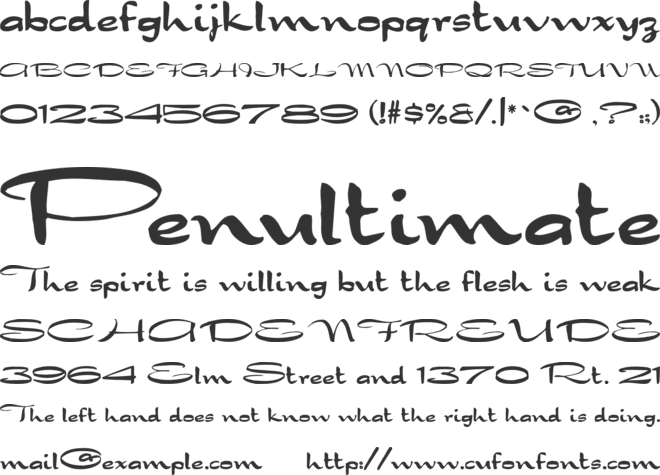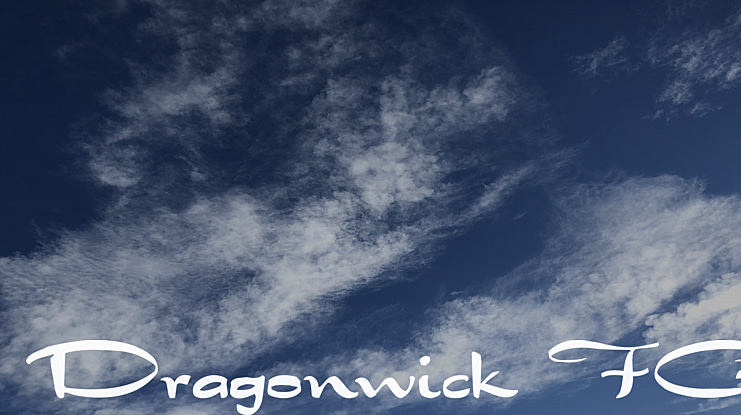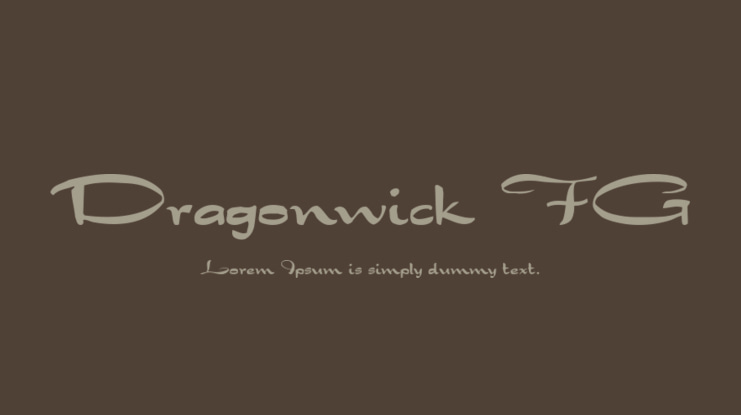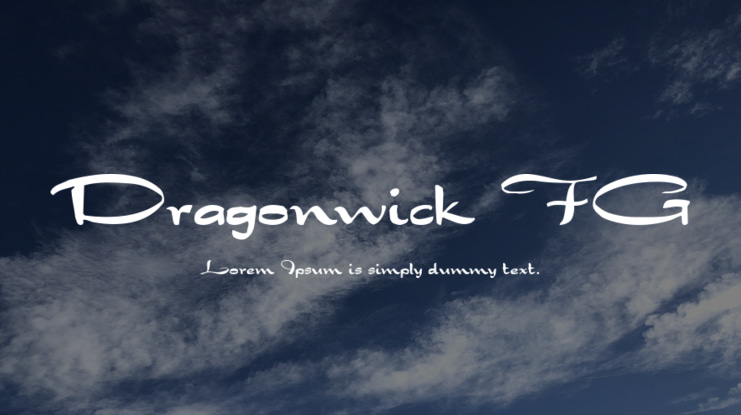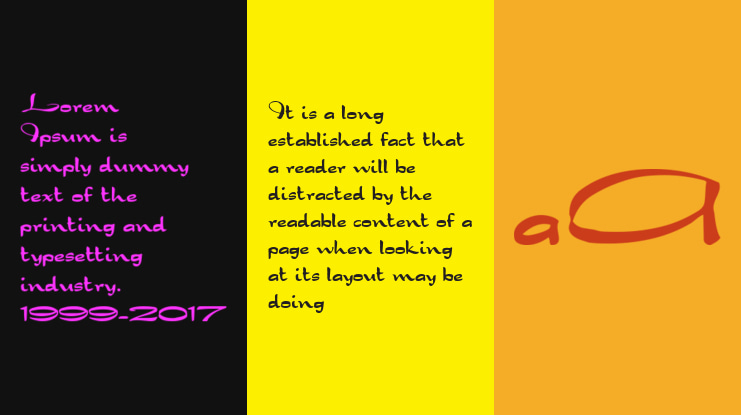
Dragonwick FG Font
This font was digitized in 1990 by David Rakowski and published as shareware. I have no idea as to whether he also designed it or scanned one of the solotype catalogue samples.Dragonwick 1990 contained no characters with diacritical marks and only limited punctuation. In 2002, I added most of these and also changed a few characters, compare T and s to the original that is still around everywhere. The most significant changes were made to the F which I re-created, since the original F would not be recognisable easily in my country. You still find the orginal as the florin character (#131). Almost 90 kerning pairs were added to relieve the worst spacing problems.For the Fontgrube relaunch 2013 I made a slight revision, added missing kern pairs and adjusted the guillemets to fit the size of the lowercase characters.
Fontgrube - original published by D. Rakowski